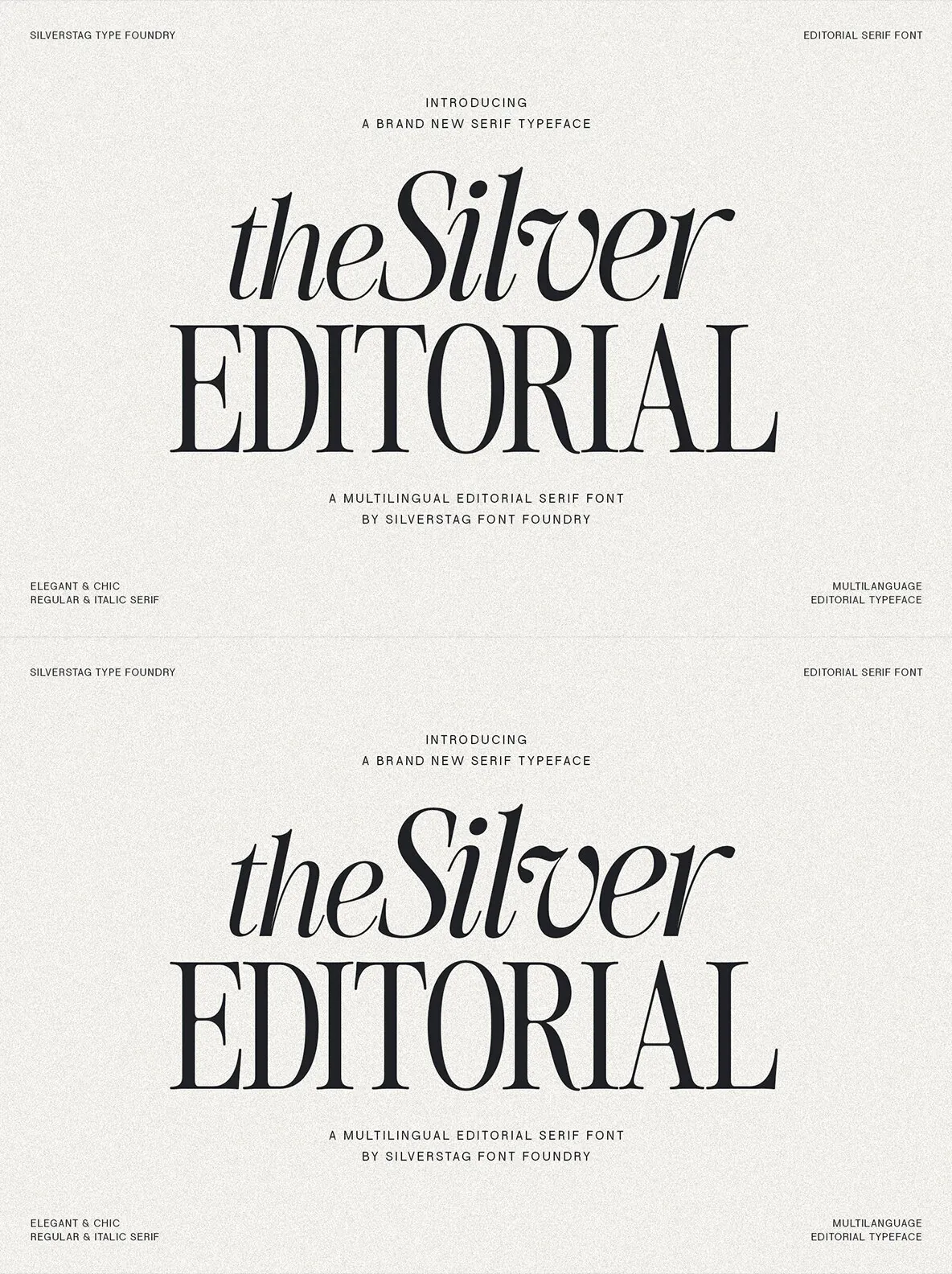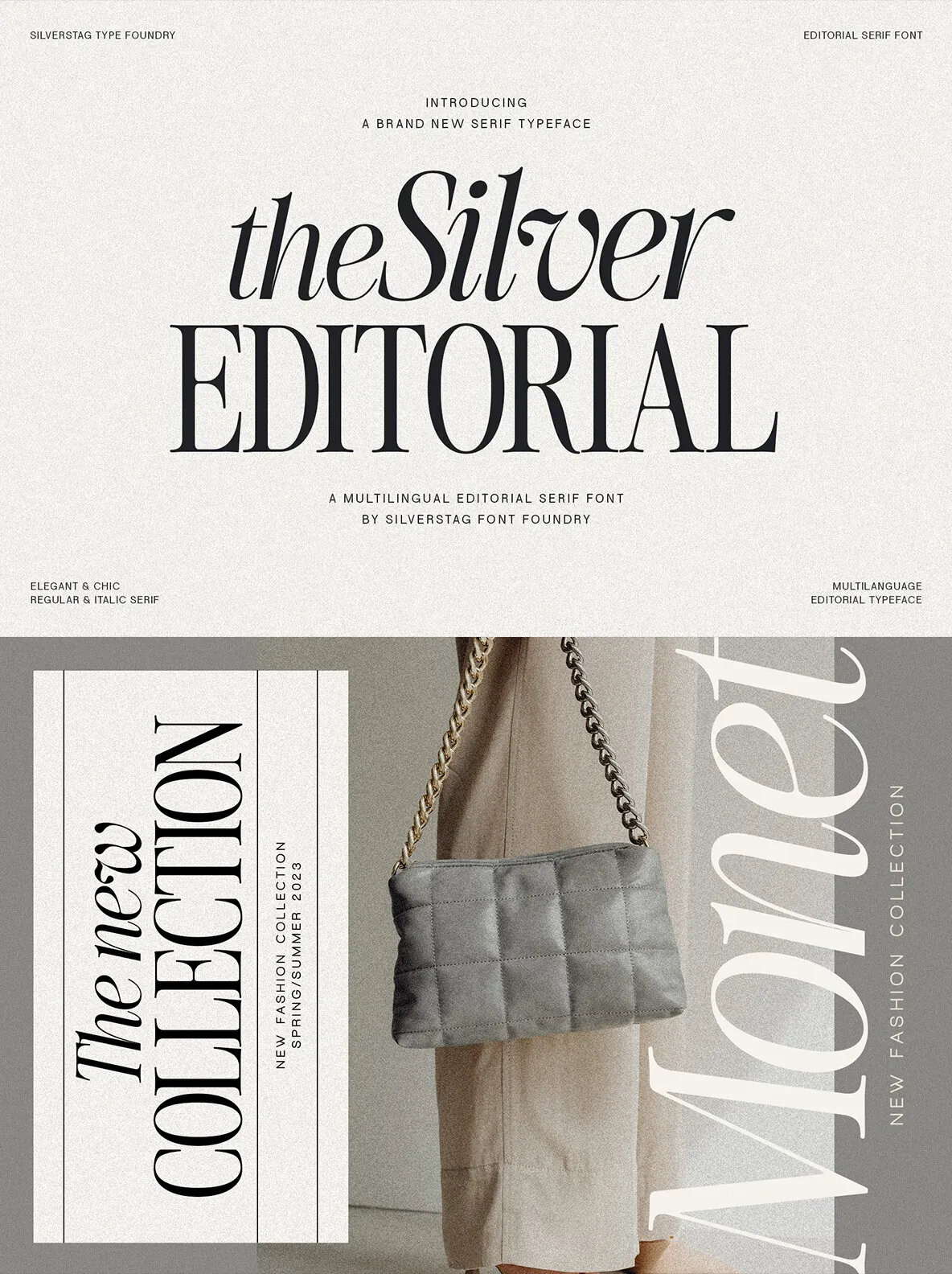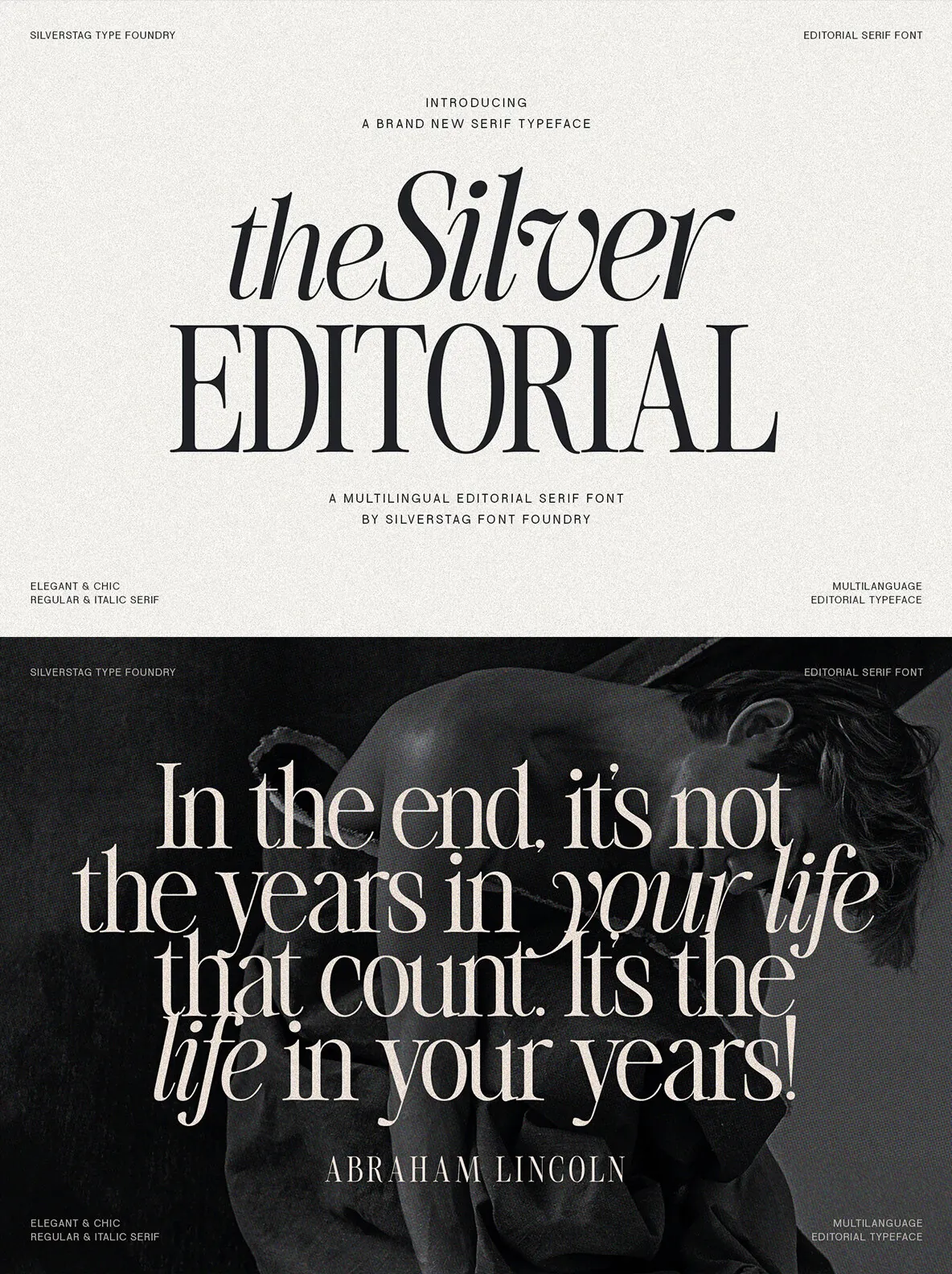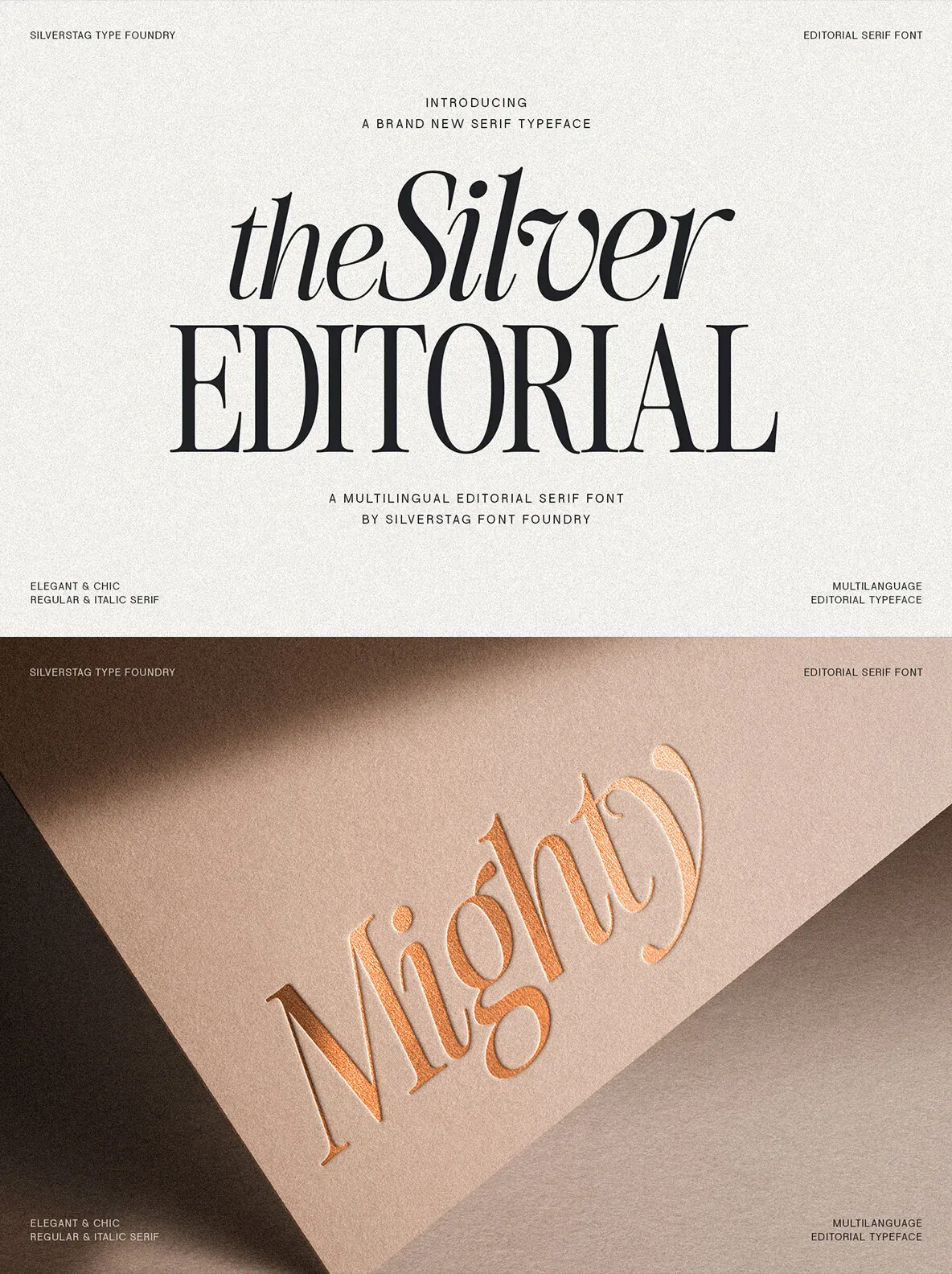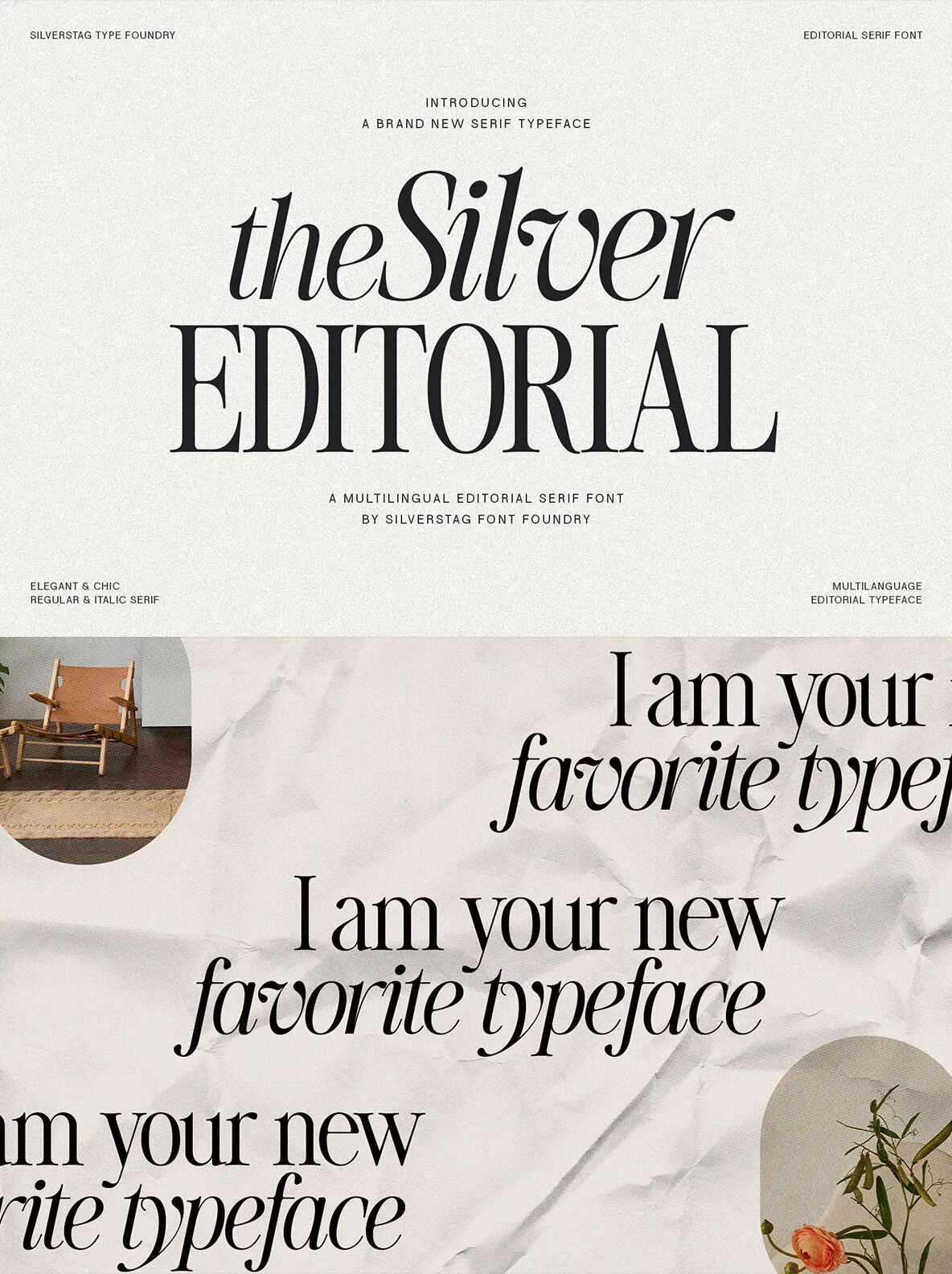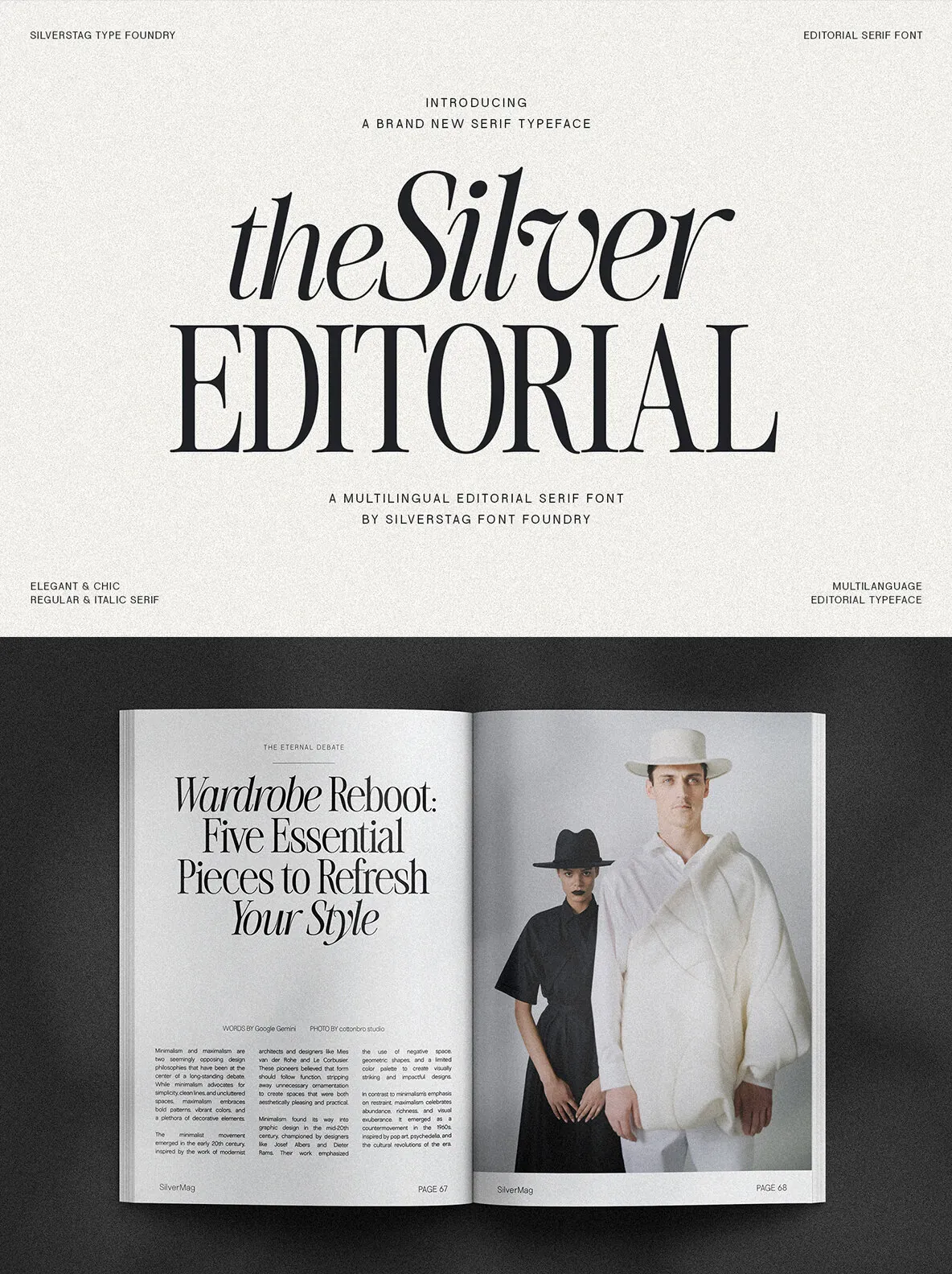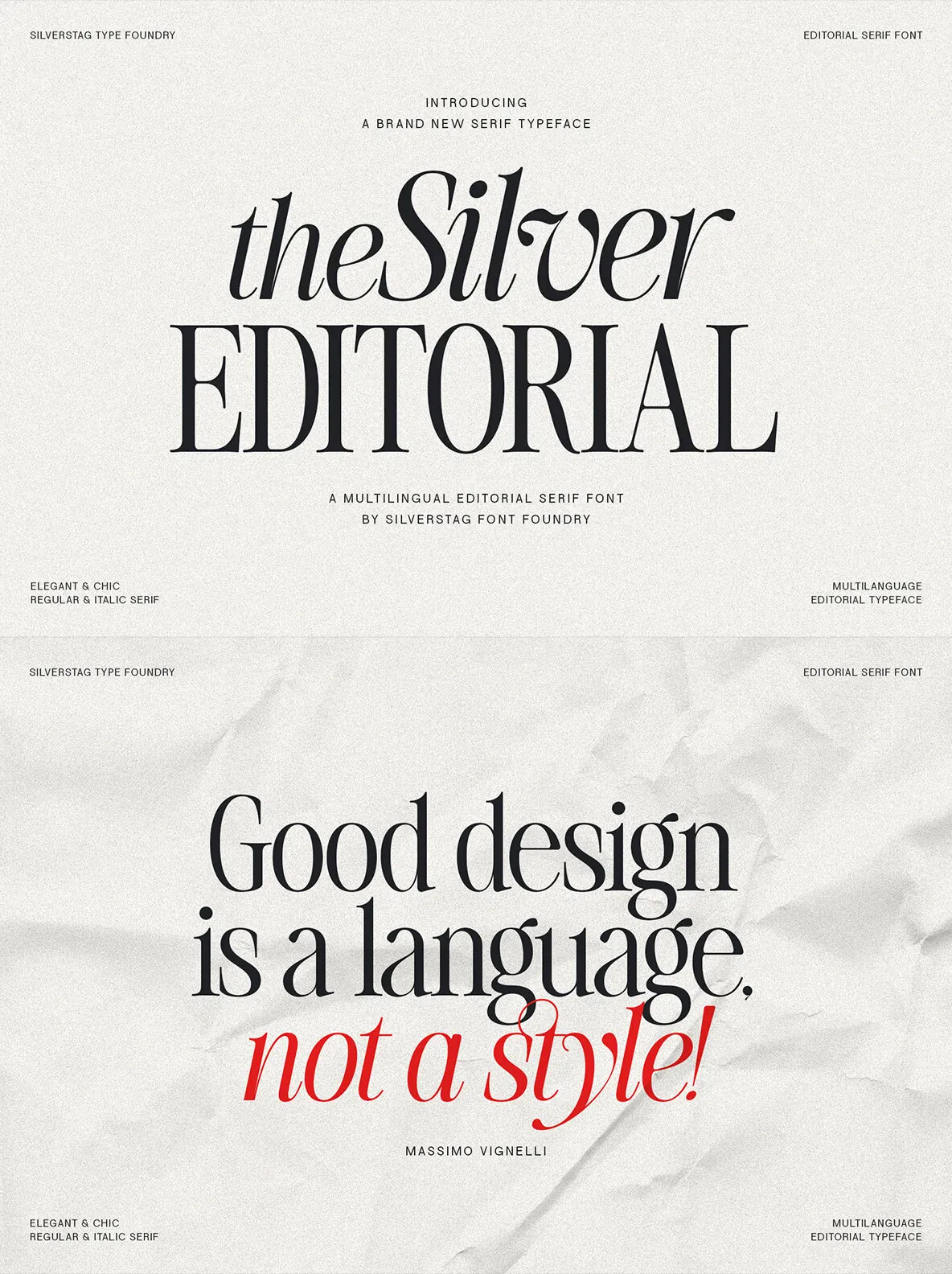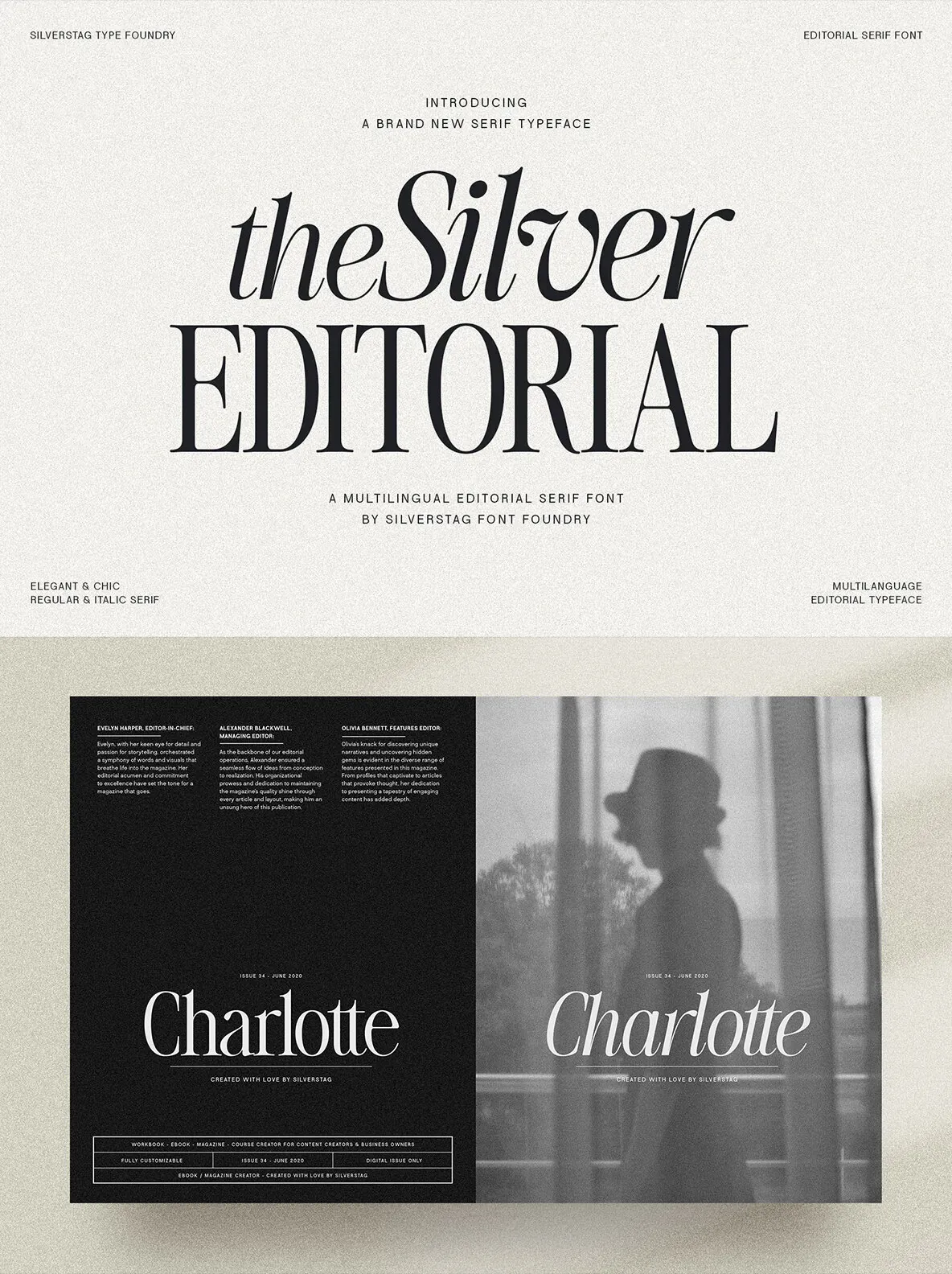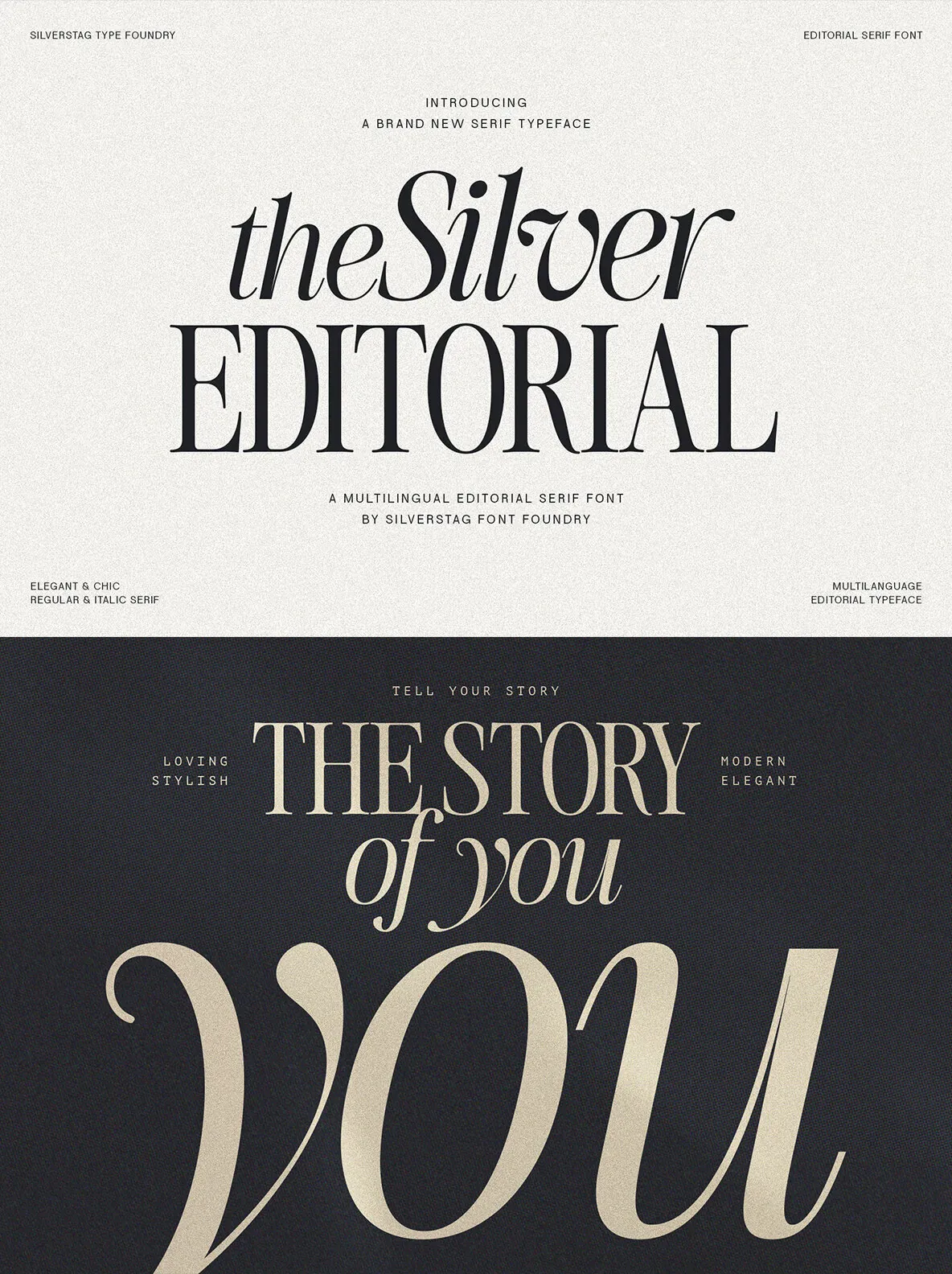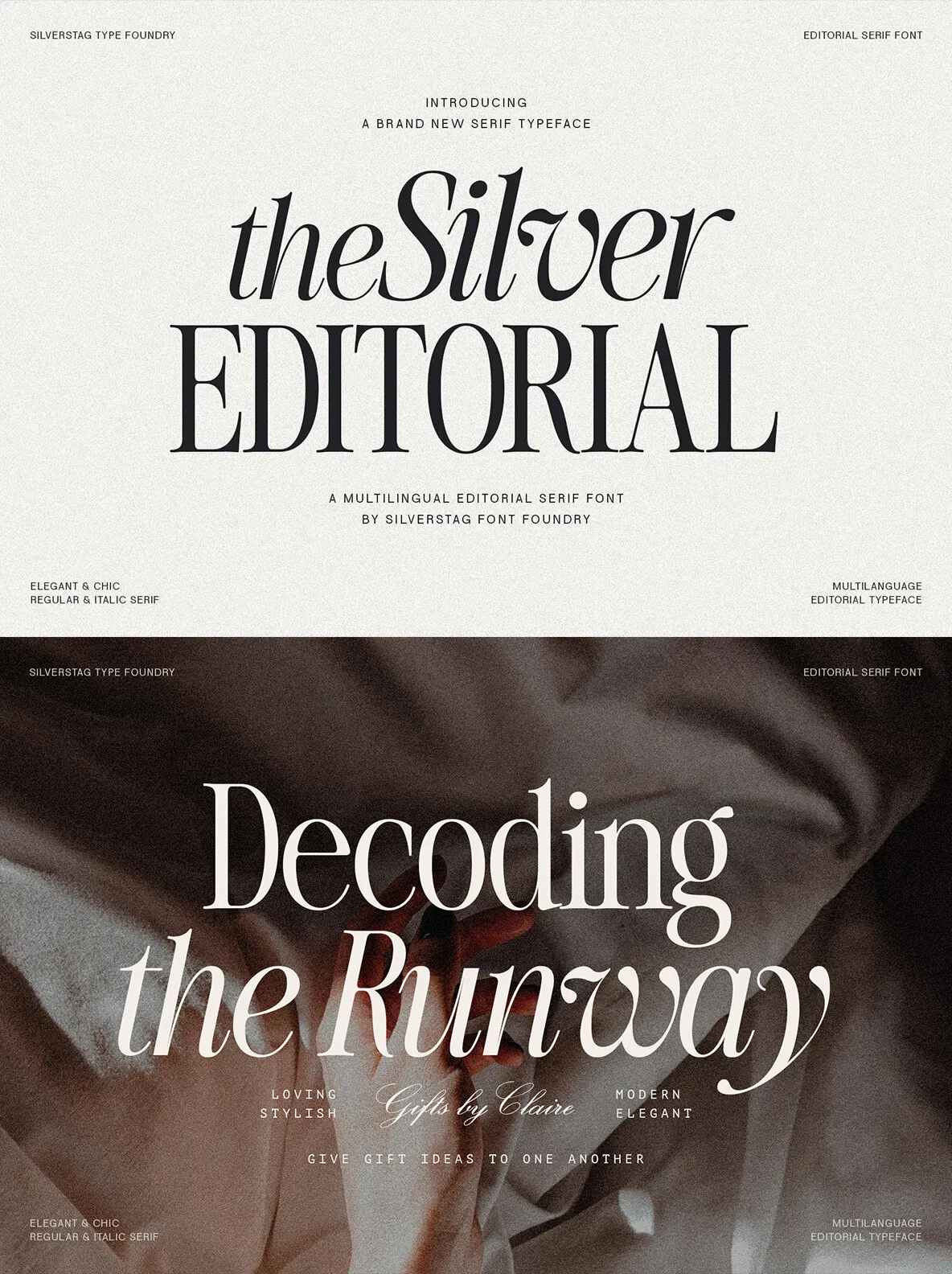
The Silver Editorial — 80s Poise, Sharpened
The Silver Editorial is an editorial serif that looks for the sweet spot between the familiar and the unexpected. It draws clear inspiration from the iconic typefaces of the 1980s, with the bold, expressive serifs seen in high-fashion magazines and forward-looking publications of the era. At the same time, it carries an unmistakably modern spirit. The design keeps the cool confidence of those references, pares back the excess, and gives the forms a cleaner edge suited to today’s screens and layouts.
This serif does not try to blend in. The Silver Editorial holds a headline with authority and brings a poised, sophisticated tone to daring compositions. It also moves smoothly into elegant body copy, maintaining readability without losing character. The italics are a focal point of the family—not merely slanted, but drawn with their own personality and energy. With support for over 100 languages, The Silver Editorial also fits multilingual editorial design and global communication with clarity and presence.